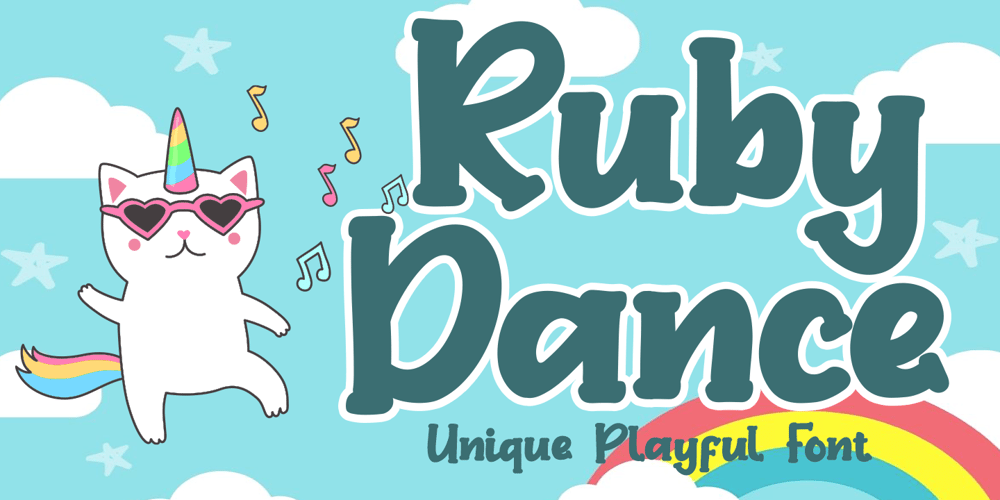
Ruby Dance
Ruby Dance font
Ruby Dance Font Family was designed by Dian Haniffan Hadi and published by Beary. Ruby Dance contains 1 styles and family package options. Ruby Dance is inspired by a playful style and combination with hand lettering. Every single letter has been carefully crafted to make your text look beautiful. This font is PUA encoded so you can access extras from character map in most design software. Multi-lingual support is included.To enable the OpenType Stylistic alternates, you need a program that supports OpenType features such as Adobe Illustrator CS, Adobe Indesign & CorelDraw.There are additional ways to access alternates, using Character Map (Windows), Nexus Font (Windows), Font Book (Mac) or a software program such as PopChar (for Windows and Mac).Happy Creating